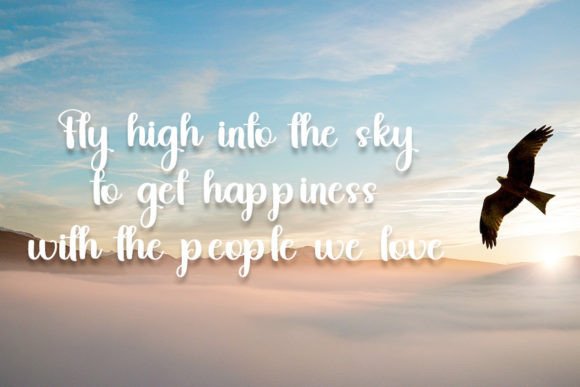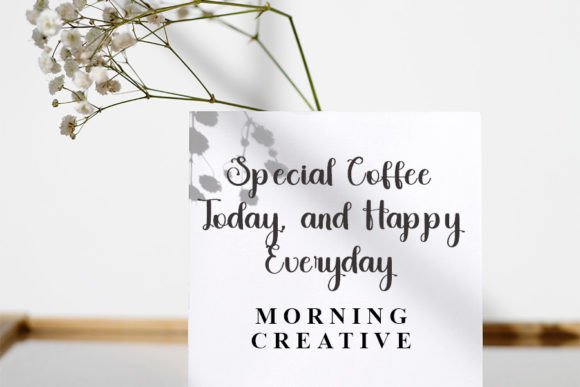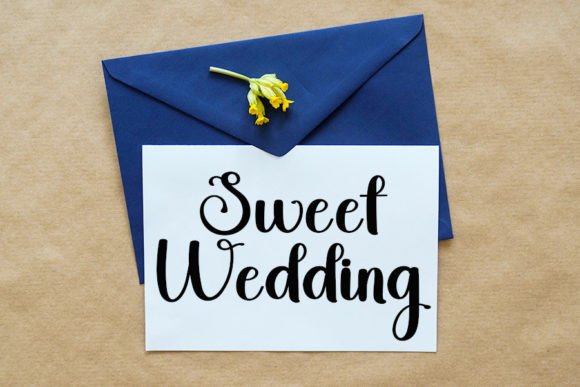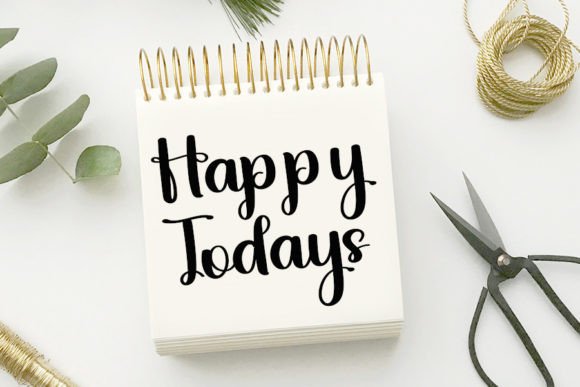
Sunrise Font
About Sunrise Font
“Sunrise” is a friendly handwritten font that has been meticulously designed to become a cherished addition to your font library. Crafted with versatility in mind, this font aims to bring a friendly and inviting quality to all your creative projects.
The friendly and handwritten style of “Sunrise” adds a personal and authentic touch to your designs. This makes it an excellent choice for a variety of creative applications, allowing you to infuse your projects with a sense of warmth and approachability.
Imagine “Sunrise” being used in a poster design, where its friendly letters contribute to a welcoming and engaging message. Picture it in social media graphics, creating a personable and relatable online presence. Envision this font used in product packaging, adding a touch of friendliness to the overall branding.
The versatility of “Sunrise” extends to its ability to complement different design contexts, making it suitable for both personal and commercial projects. Whether you’re a graphic designer seeking a font that brings a friendly vibe to your work or an individual looking for a font to add a personal touch to your projects, “Sunrise” invites you to make it a true favorite in your creative endeavors. Let it be the key element that brings your designs to life with a friendly and handwritten charm.